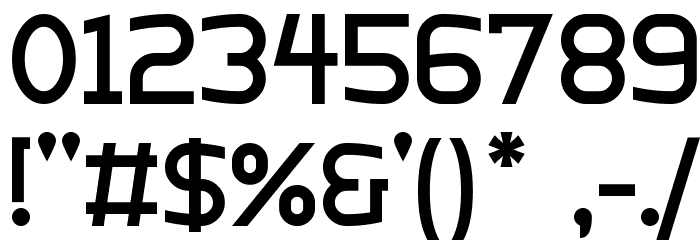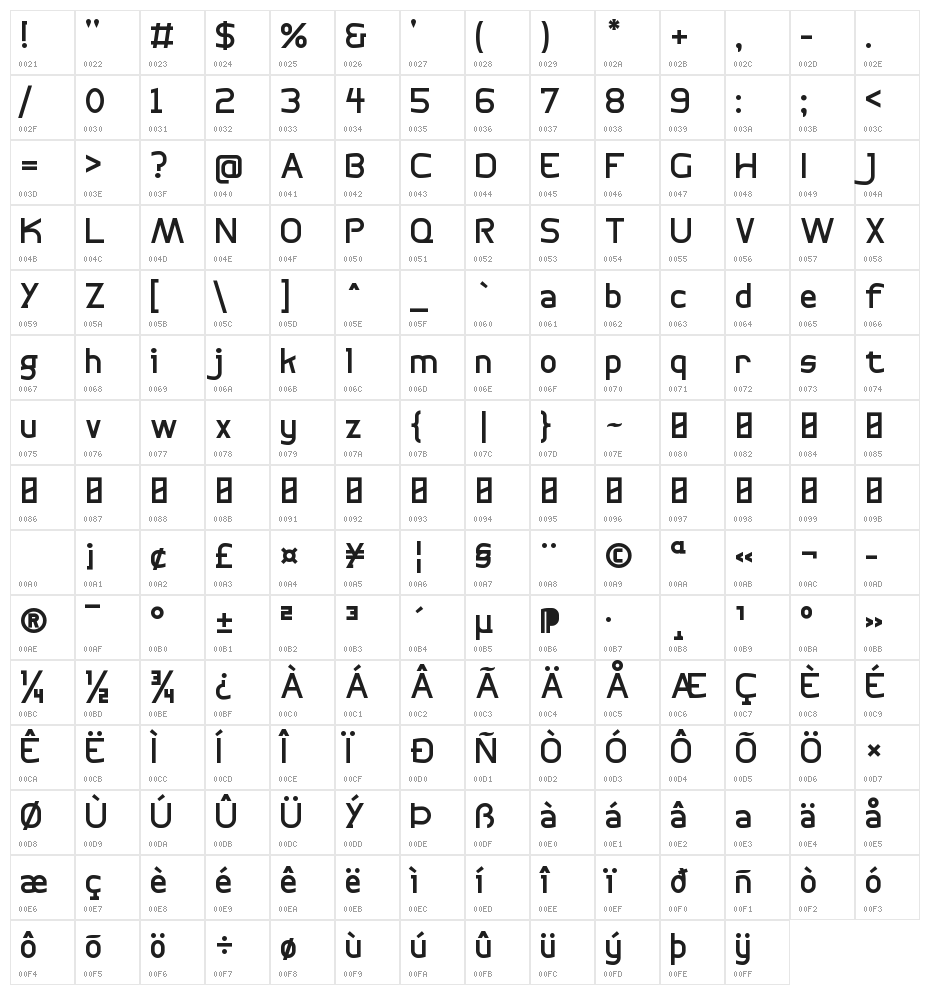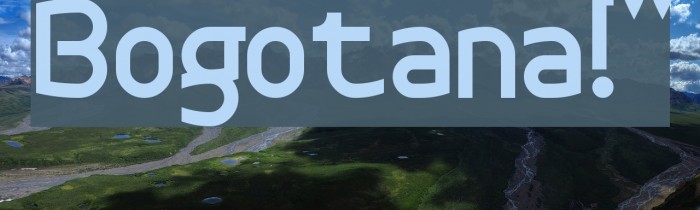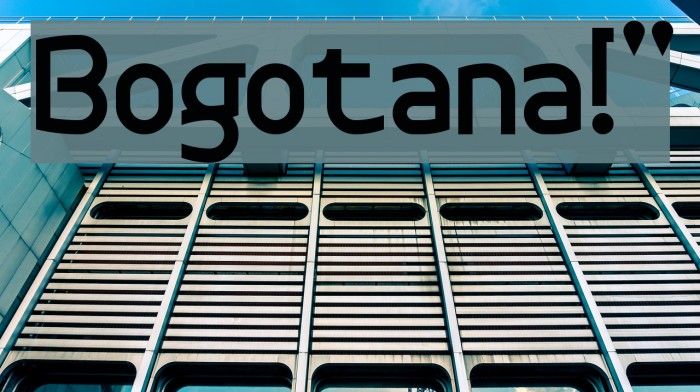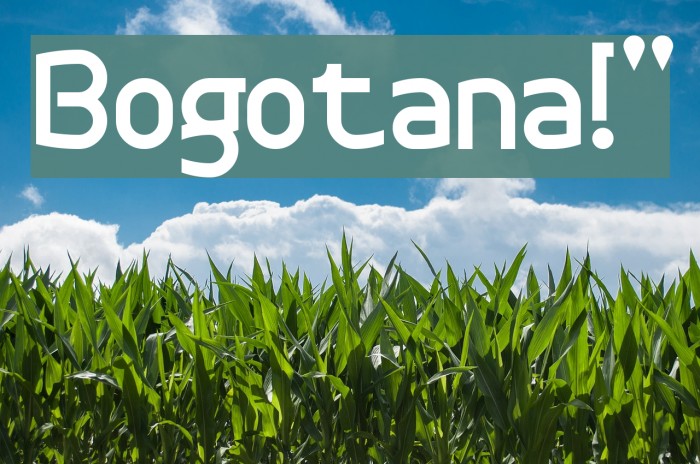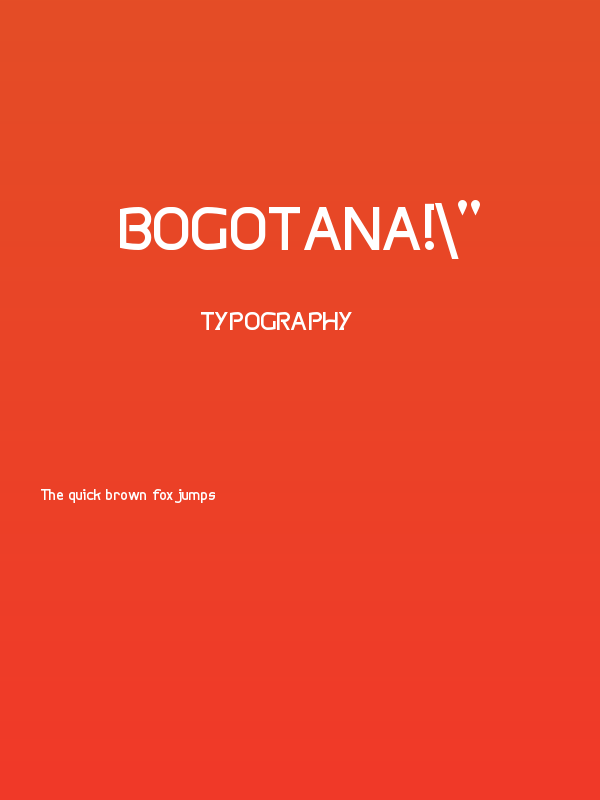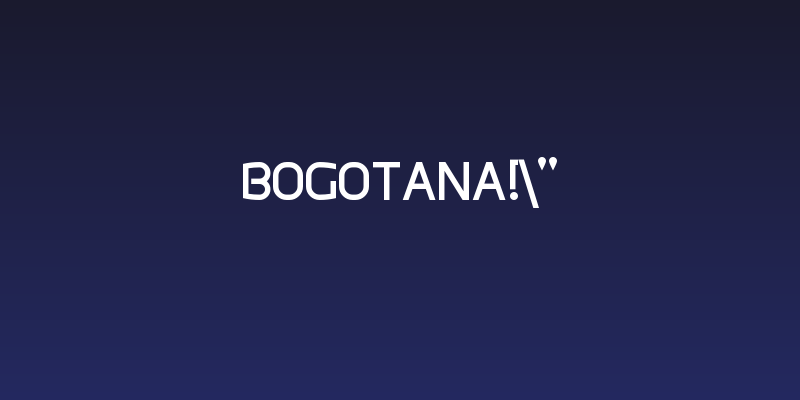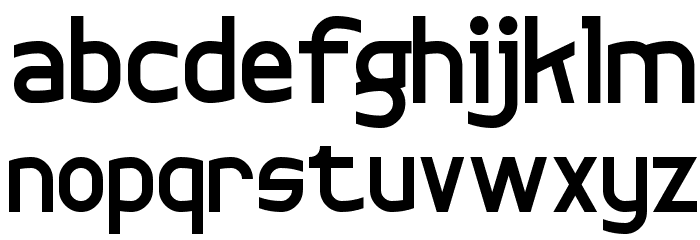
Bogotana!" Font
Bogotana!" Description
This font features a modern and geometric design with clean, rounded edges and a uniform stroke width. The characters are well-balanced, offering a harmonious blend of curves and straight lines. The uppercase letters are bold and assertive, while the lowercase letters maintain a friendly and approachable appearance. The numerals are clear and easily distinguishable, making them suitable for various applications. Special characters are included, providing versatility for different contexts. Overall, this font exudes a contemporary and professional vibe, ideal for digital and print media.